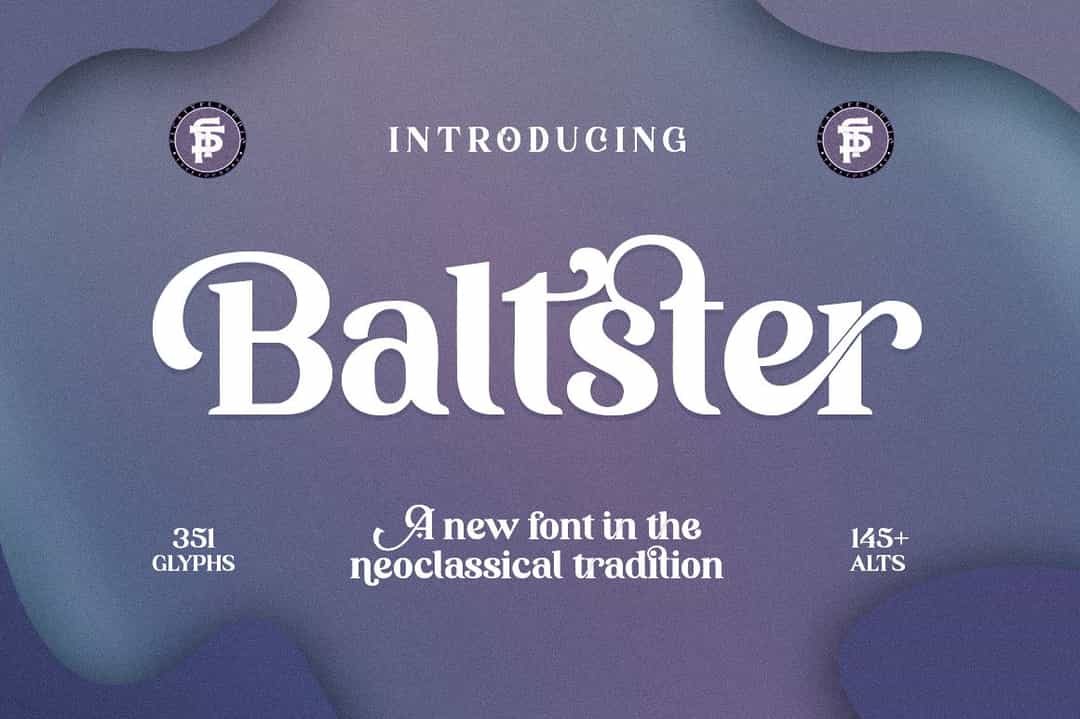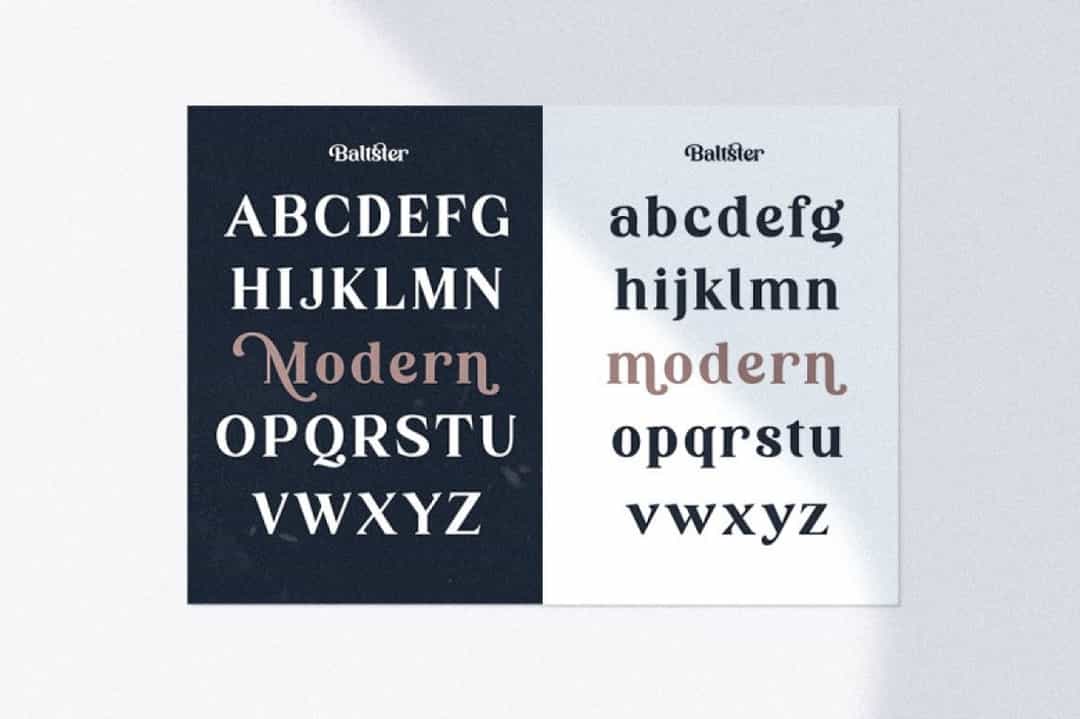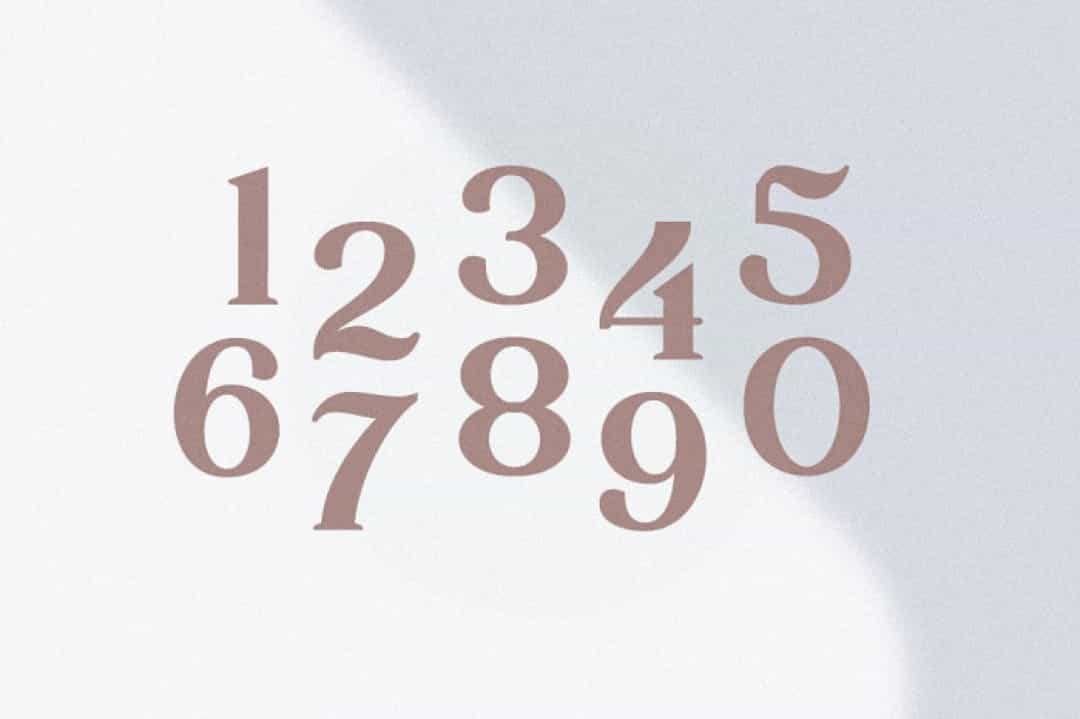
Baltster Serif Font is an eye-catching natural and elegant style font with vintage flair, featuring 56 ligatures to easily connect letters. This allows Baltster to serve as an outstanding display font. Additionally, this font includes an impressive 89 font options (alphabet symbols punctuation as well as PUA support). Use Baltster in your project for natural-looking results!